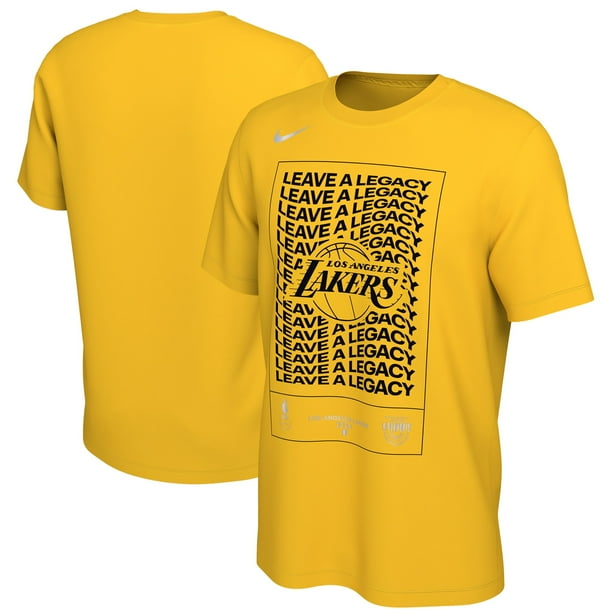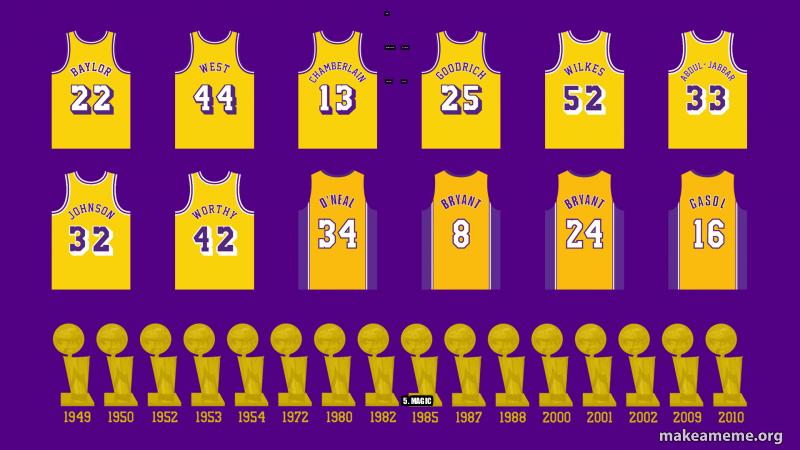
The font used for los angeles lakers logo is very similar to bauer bodoni black italic which is a neoclassical serif font designed by giambattista bodoni heinrich jost and published by linotype.
Lakers number font generator. Keep calm and love lakers keep calm and posters generator. Lakers font lakers font generator. The numbers letters were originally created by nick whitford and dennis lmupepbander ittner.
The lakers logo features the lakers logotype as well as the text los angeles on a basketball. Lakers smh sad frog meme generator. What font was used in los angeles lakers logo.